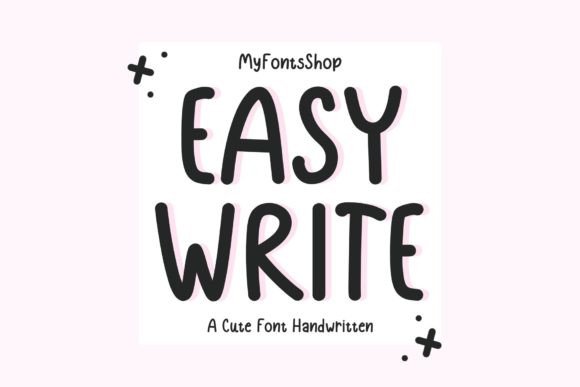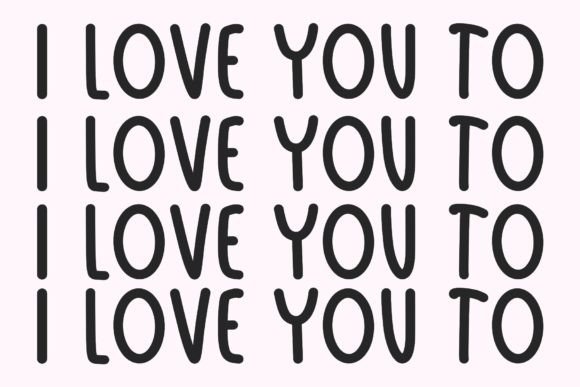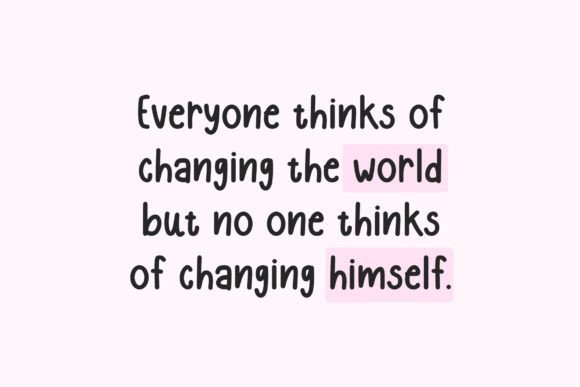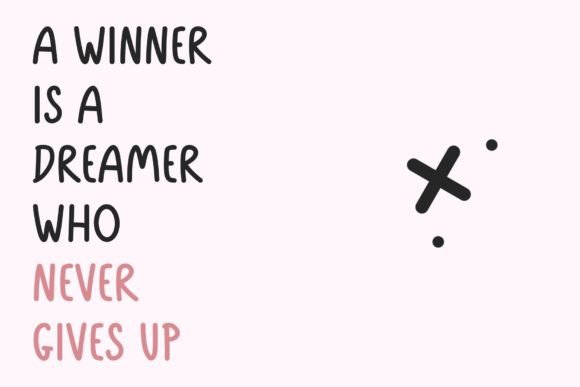
Easy Write Font: A Cute Handwritten Font for Cricut & DIY Projects!
About the Easy Write Font
Crafted with precision, the Easy Write Font is ready to bring your ideas to life. Easy Write is a sweet and friendly handwritten font. Its natural and unique
style makes it incredibly fitting to a large pool of designs. The only limit is
your imagination!
Easy Write’s friendly, informal style works exceptionally well for projects requiring a personal touch, such as branding for small businesses, social media graphics, handwritten-style quotes on posters or invitations, and packaging for artisanal products. It excels in headlines and short text blocks but is less suitable for lengthy body copy or UI elements where readability is paramount.
Consider pairing Easy Write with a clean sans-serif like Open Sans for a balanced contrast, or a classic serif like Garamond for a more sophisticated feel. For a playful effect, a geometric sans-serif like Montserrat could also work well.
The font’s core personality is approachable and optimistic; its slightly imperfect letterforms convey a sense of warmth and authenticity, making it ideal for brands aiming for a friendly, handcrafted image.
Easy Write Font Usage Examples
Easy Write Font Example